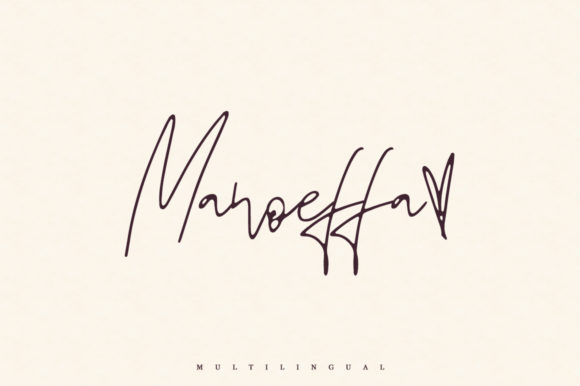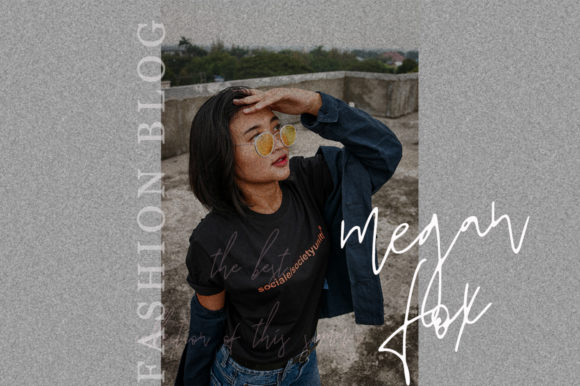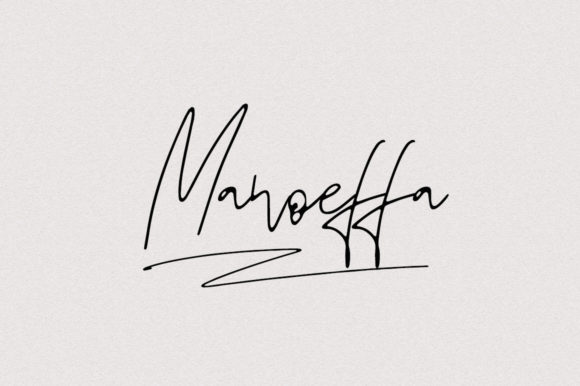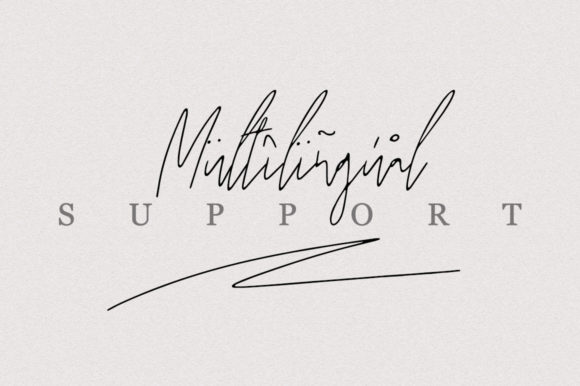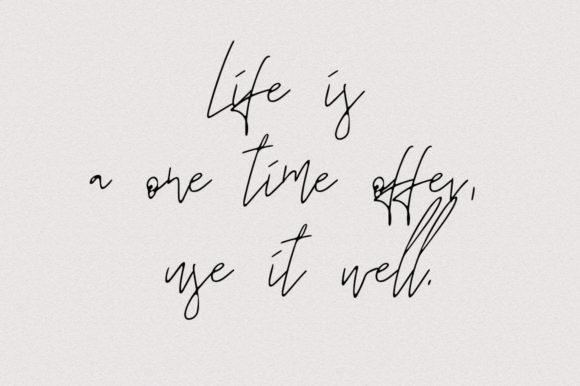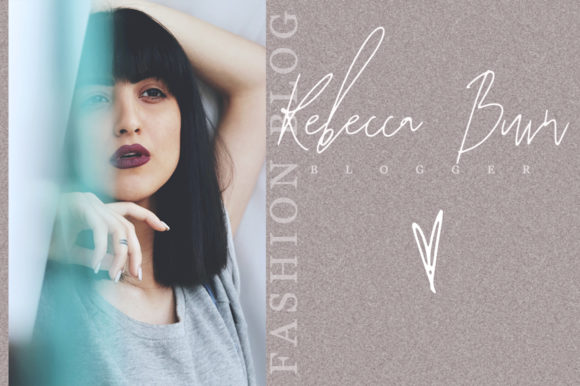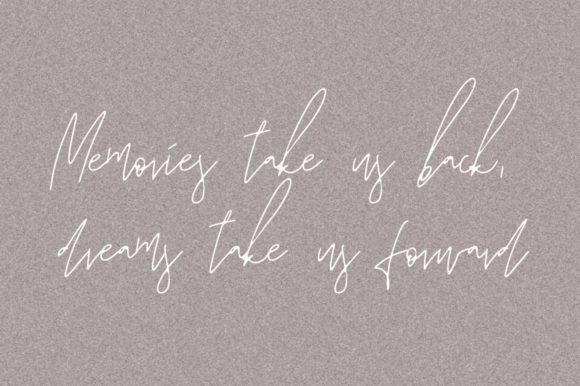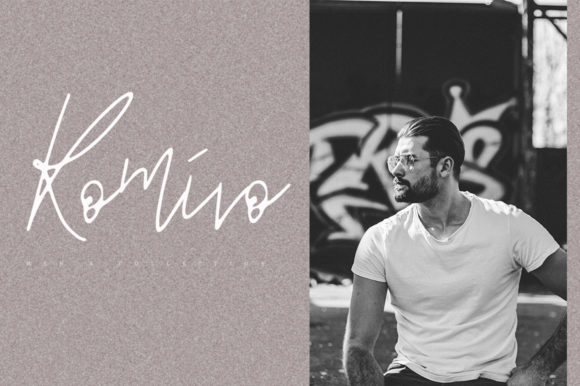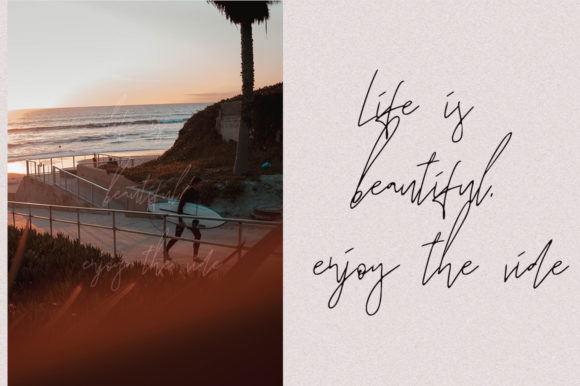
Manoeffa Font
About Manoeffa Font
Manoeffa is a cool, yet elegant handwritten font with a touch of sophistication. It’s contemporary appeal will turn any creative project into a stand out!